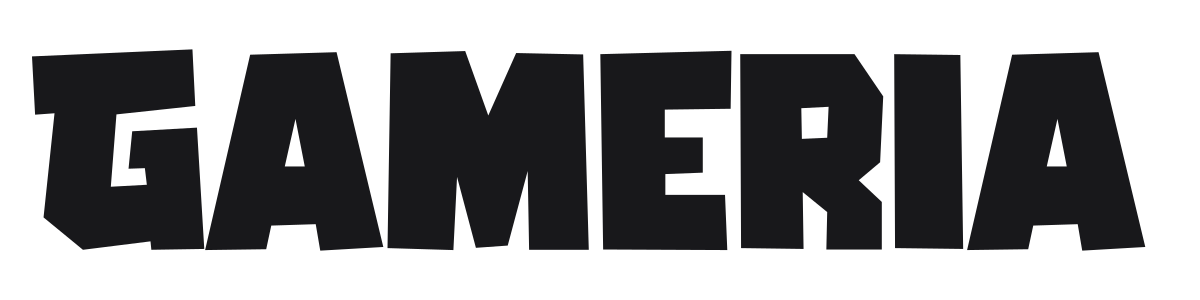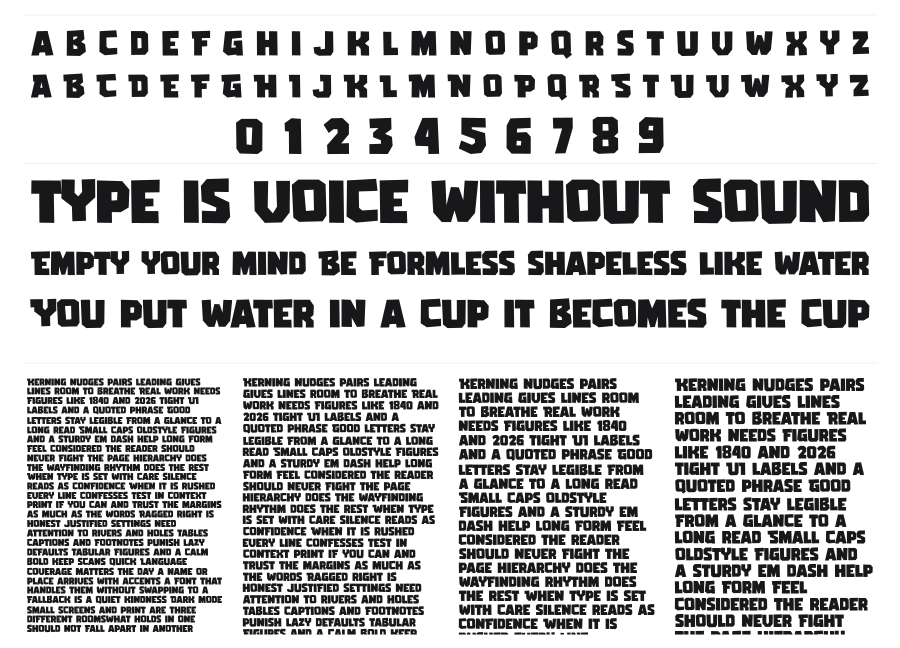
Gameria
Gameria is a heavy condensed display font built around the aesthetic of classic arcade games and action-genre graphics. Jagged diagonal cuts into the characters give it a rough, battle-worn look that feels distinctly hand-chiseled rather than polished. It hits hard at large sizes and suits game titles, event posters, and anything that needs raw energy.